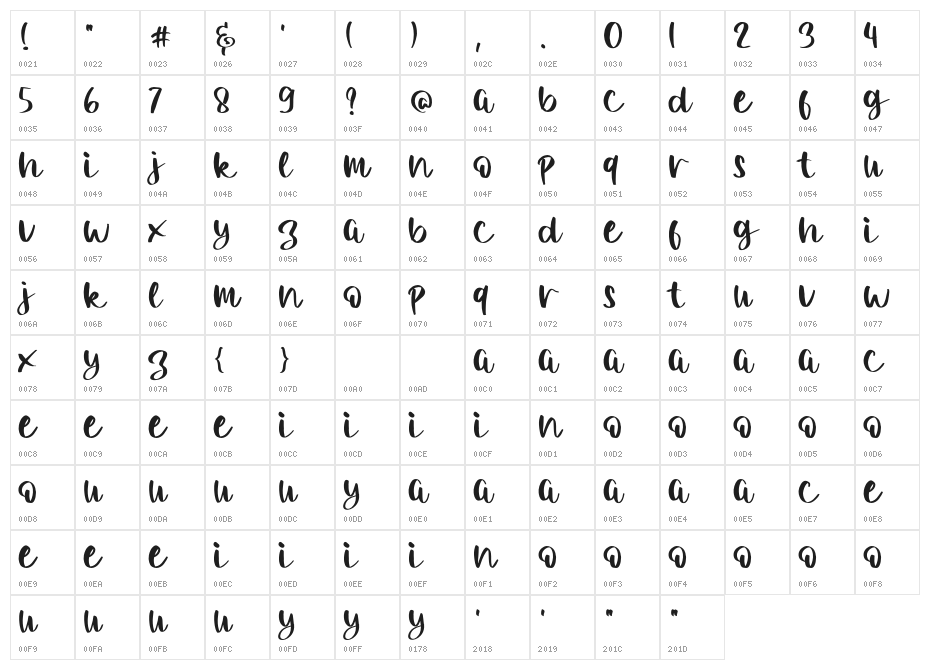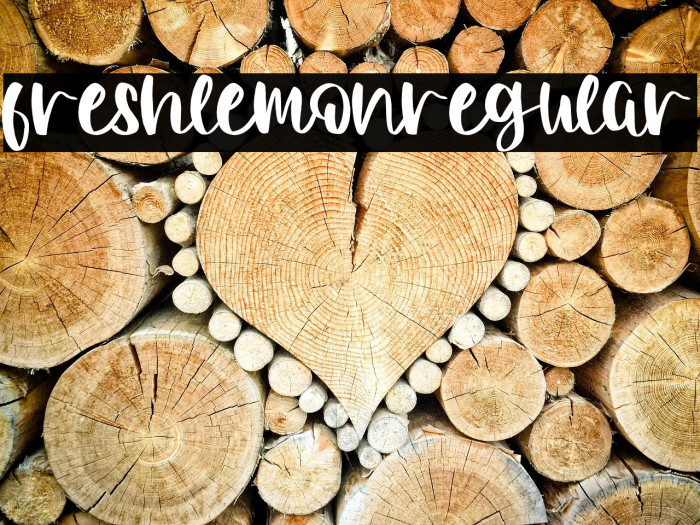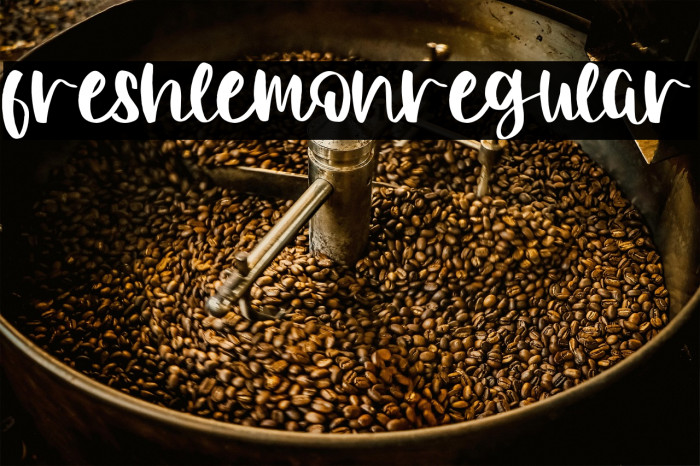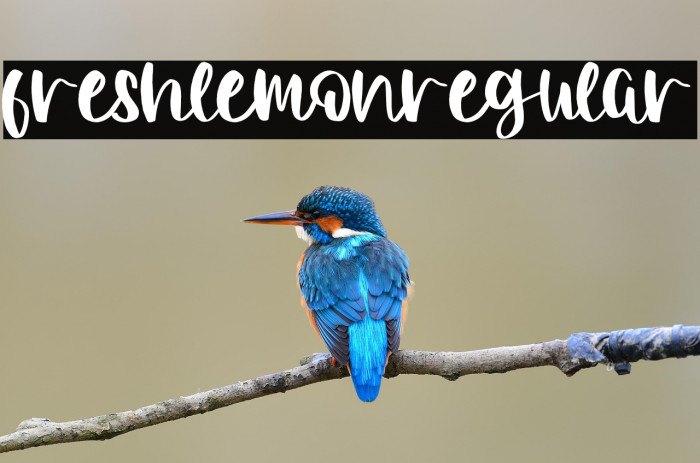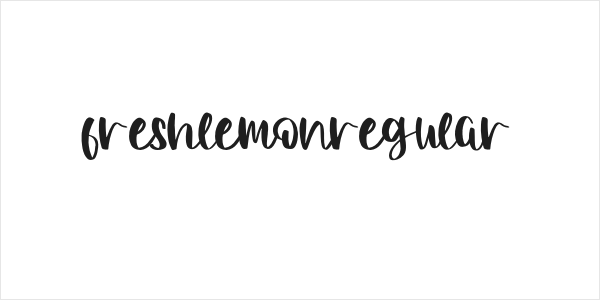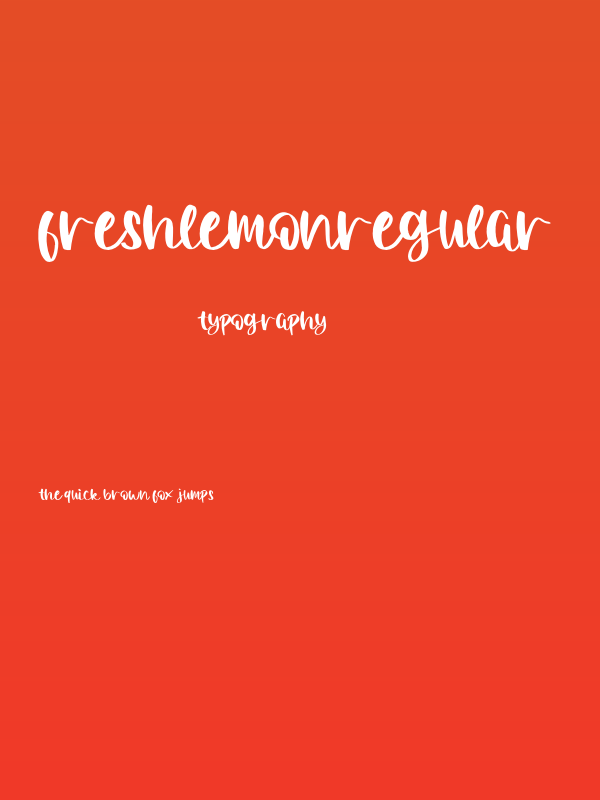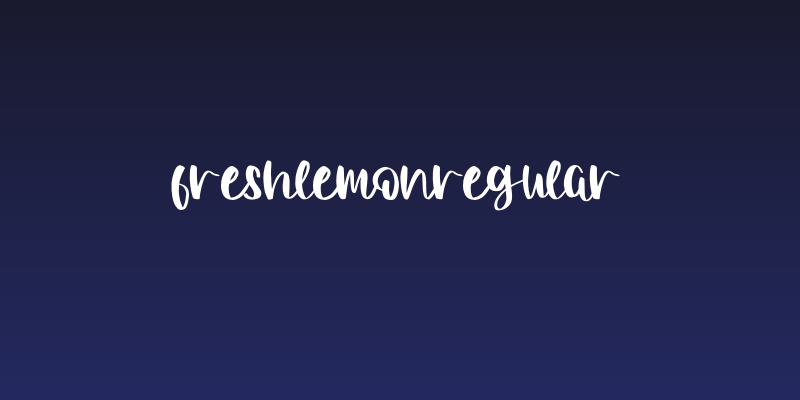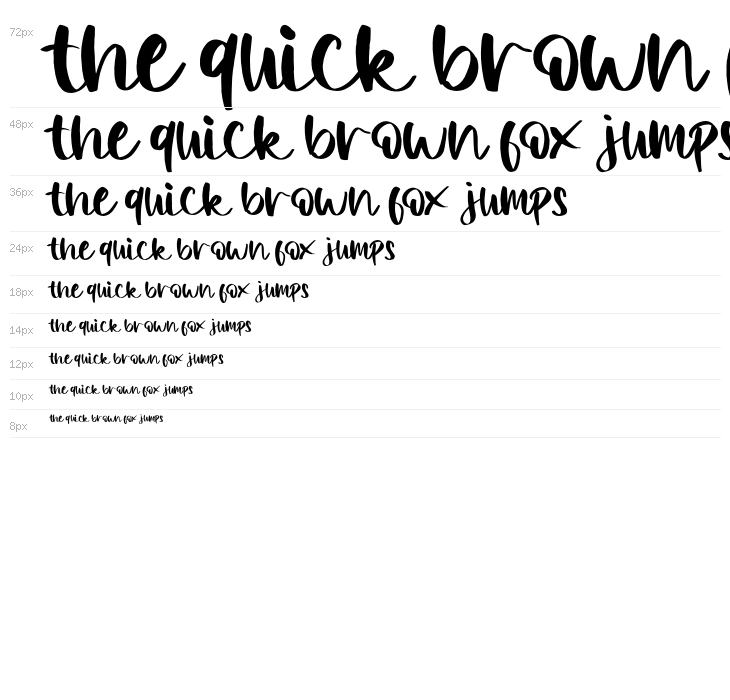
FreshlemonRegular Font
FreshlemonRegular Description
This font features a lively and dynamic handwritten style, characterized by its bold and flowing letterforms. The strokes are thick and consistent, providing a strong presence on the page. Each character is crafted with a playful flair, making it ideal for projects that require a personal touch. The uppercase and lowercase letters maintain a cohesive look, while the numerals and special characters complement the overall design. The font's energetic style is perfect for creative applications, adding a sense of fun and spontaneity to any text.
| Use Case | Logos, Headlines, Posters |
| Proposed Projects | Ideal for greeting cards, invitations, posters, and branding that seeks a personal and lively touch. |